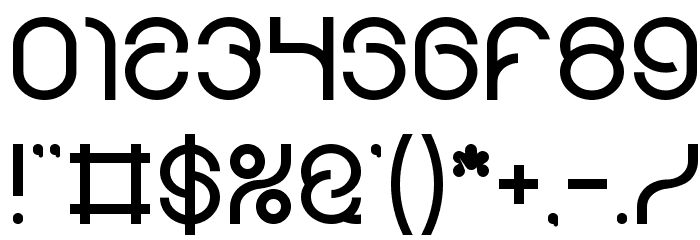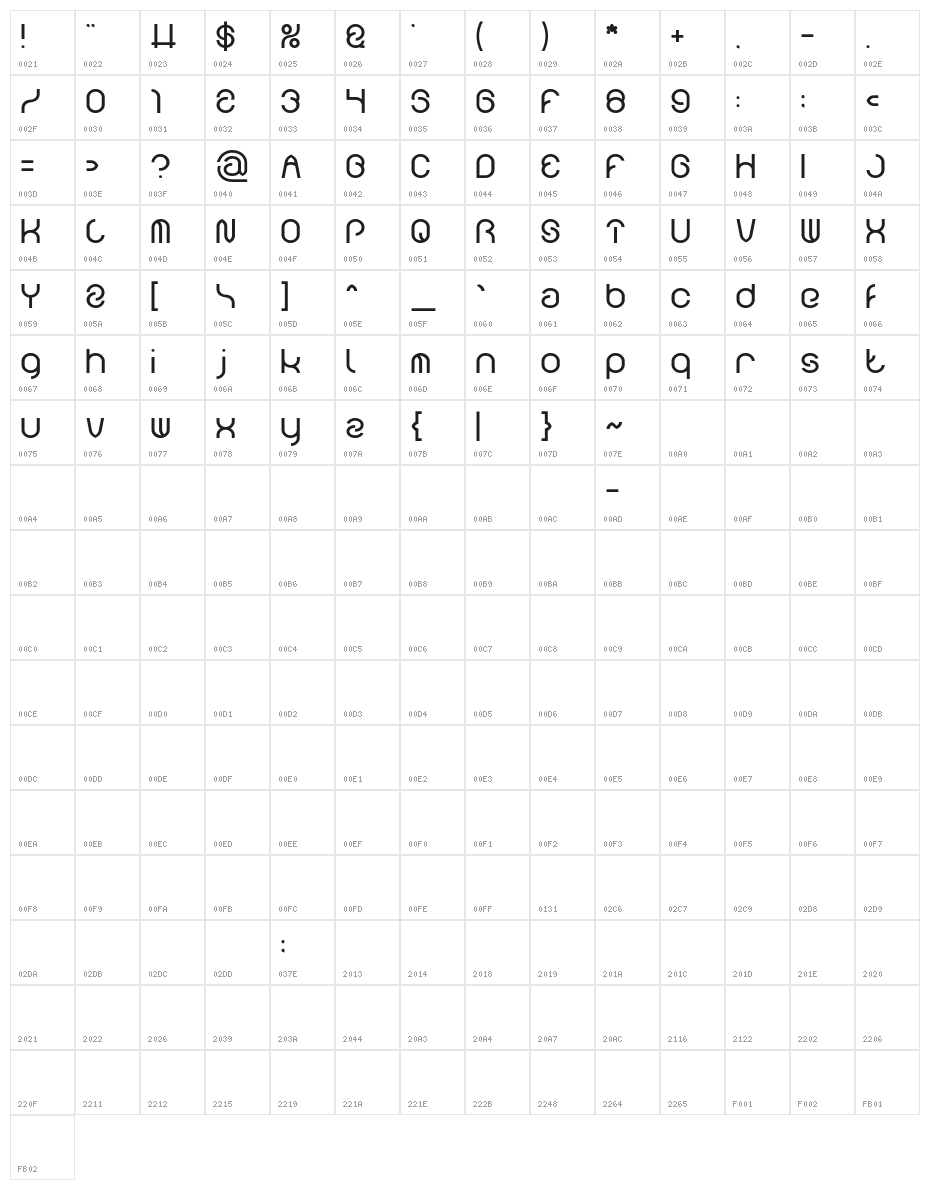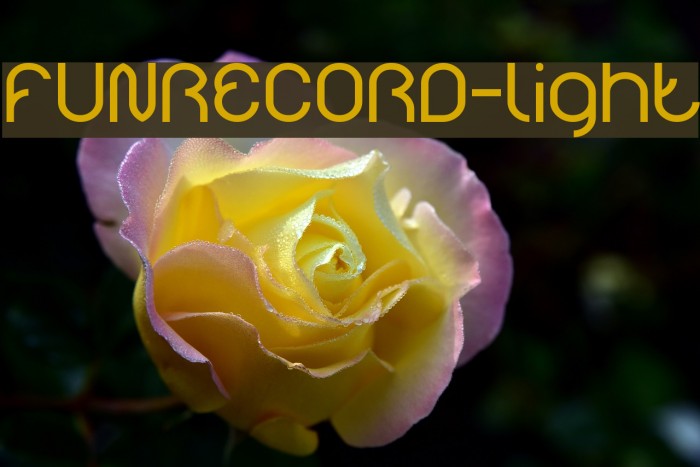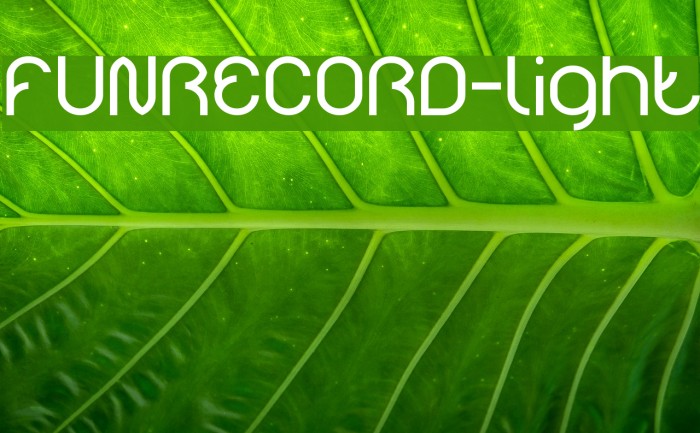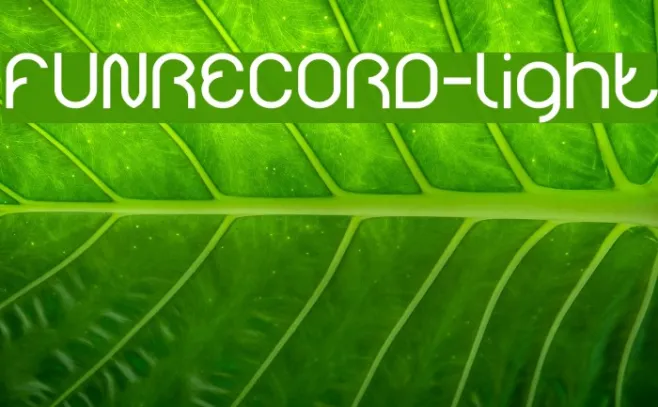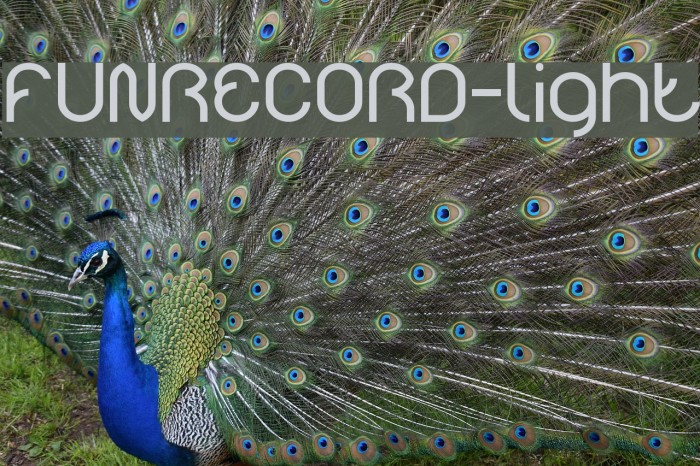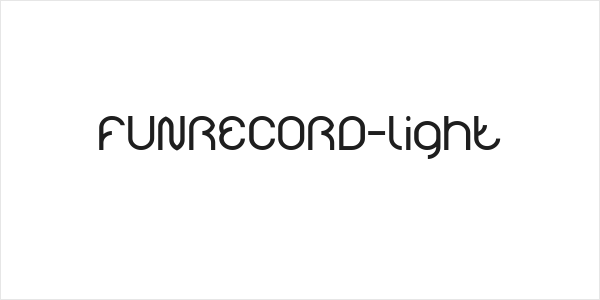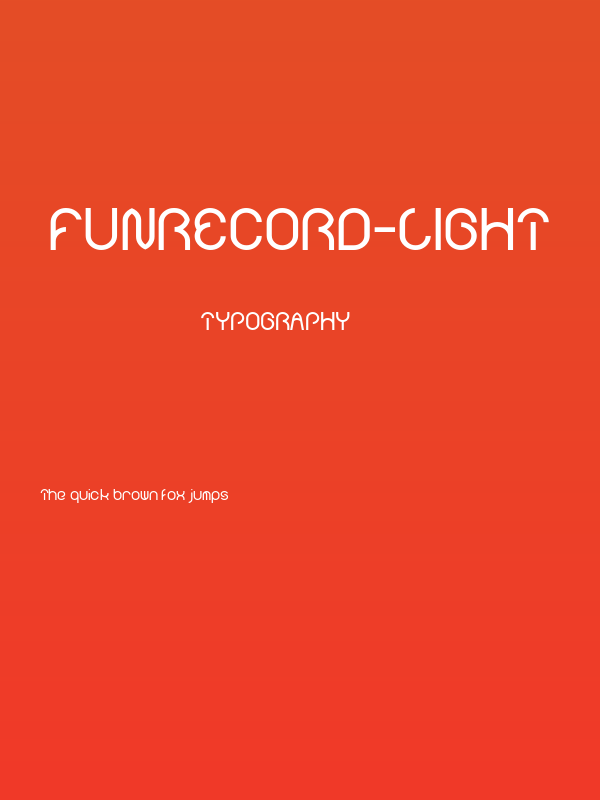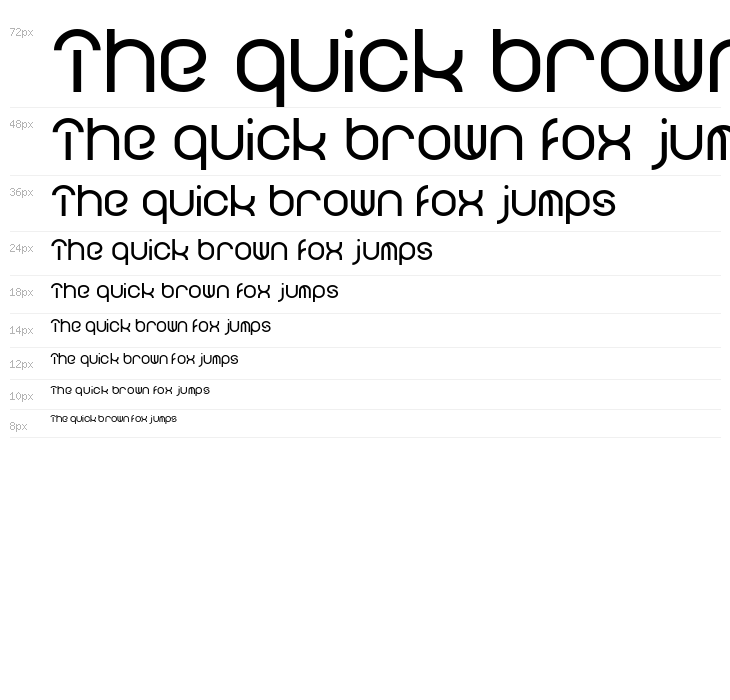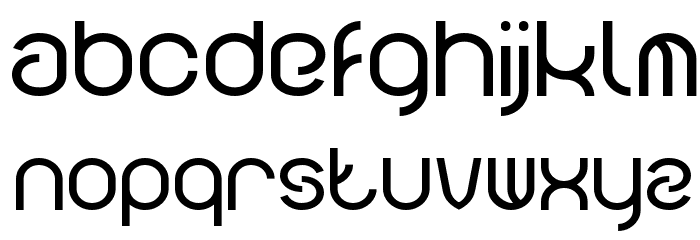
FUNRECORD-light Font
FUNRECORD-light Description
This font features a modern, geometric design with a playful and futuristic feel. The characters are composed of smooth, rounded lines and curves, creating a sense of fluidity and movement. The uppercase and lowercase letters maintain a consistent style, with unique elements such as the open loops in letters like 'P' and 'R'. The numerals are equally distinctive, with a harmonious blend of curves and straight lines. Special characters are designed to match the overall aesthetic, making this font versatile for various creative applications.